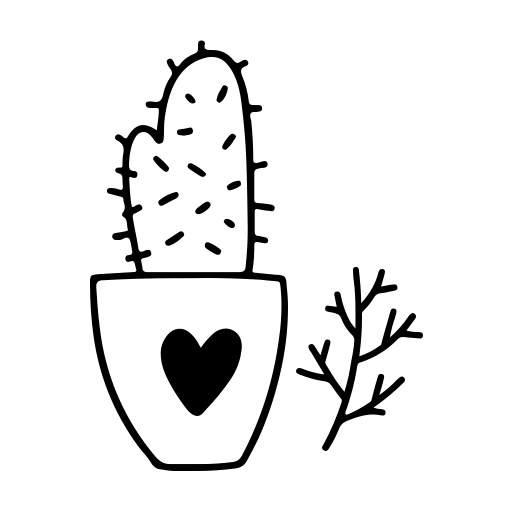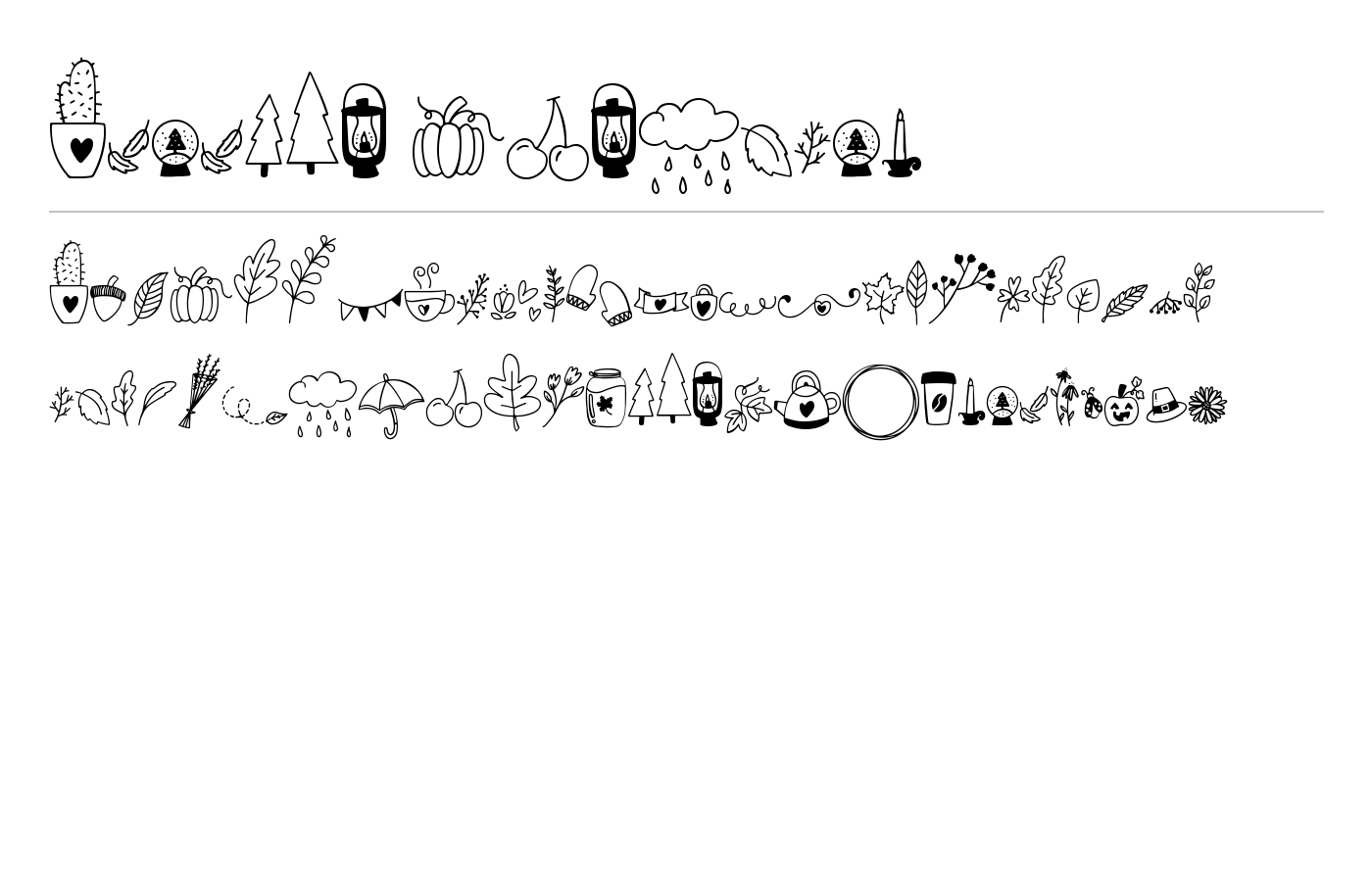
Autumn Dingbats is a charming dingbat font featuring delicate, hand-drawn icons inspired by fall motifs such as leaves, pumpkins, lanterns, and cozy seasonal objects. Its playful and whimsical style makes it perfect for adding a warm, festive touch to invitations, greeting cards, and seasonal branding projects. This font works well where a lighthearted, autumnal feel is desired, offering unique decorative elements rather than traditional text.
Autumn Dingbats Font
About Autumn Dingbats Font